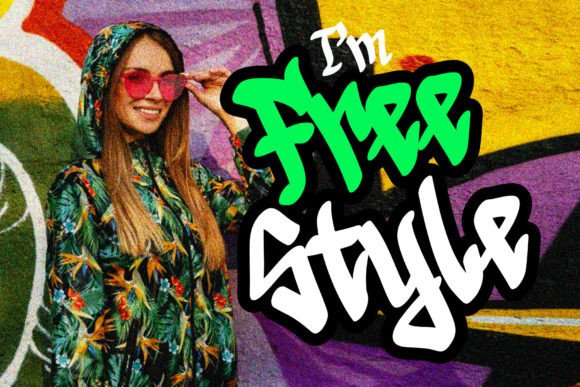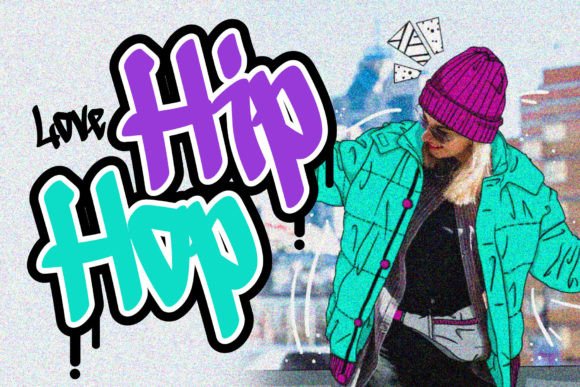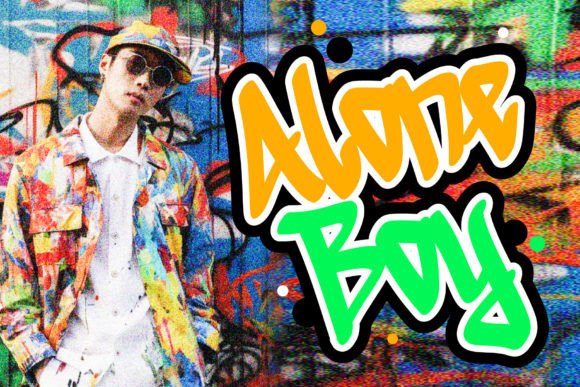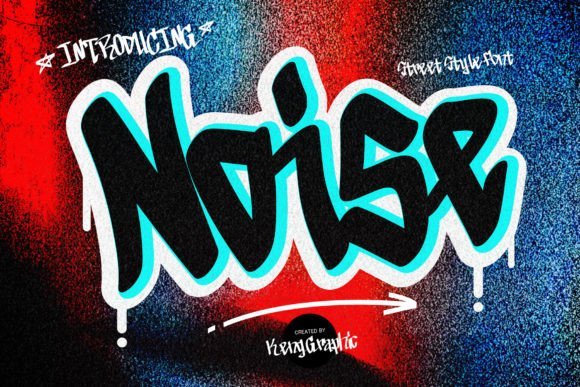
Introduction to Noise Font
Noise is a font that expresses a packed graffiti style.
Everything written in this font has an urban and street art vibe This font is great for designs like t-shirts, sportswear, logos, advertisements, apparel, and more.